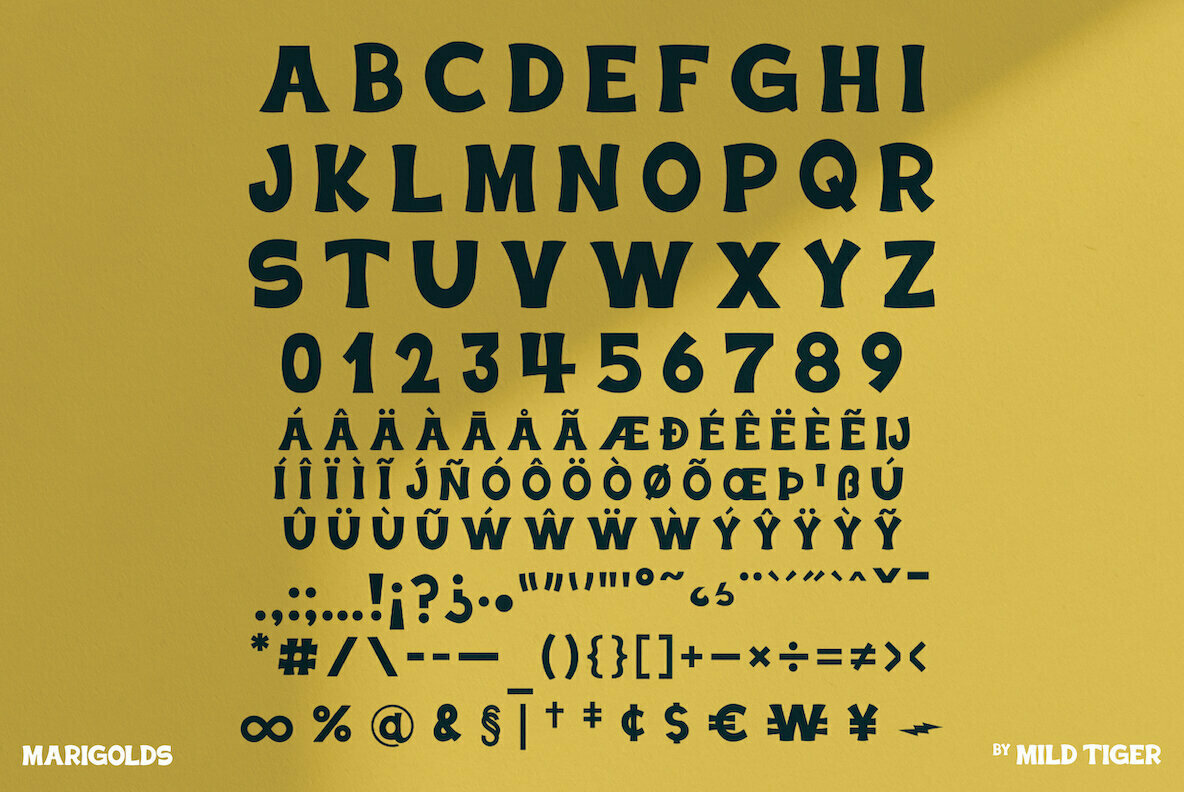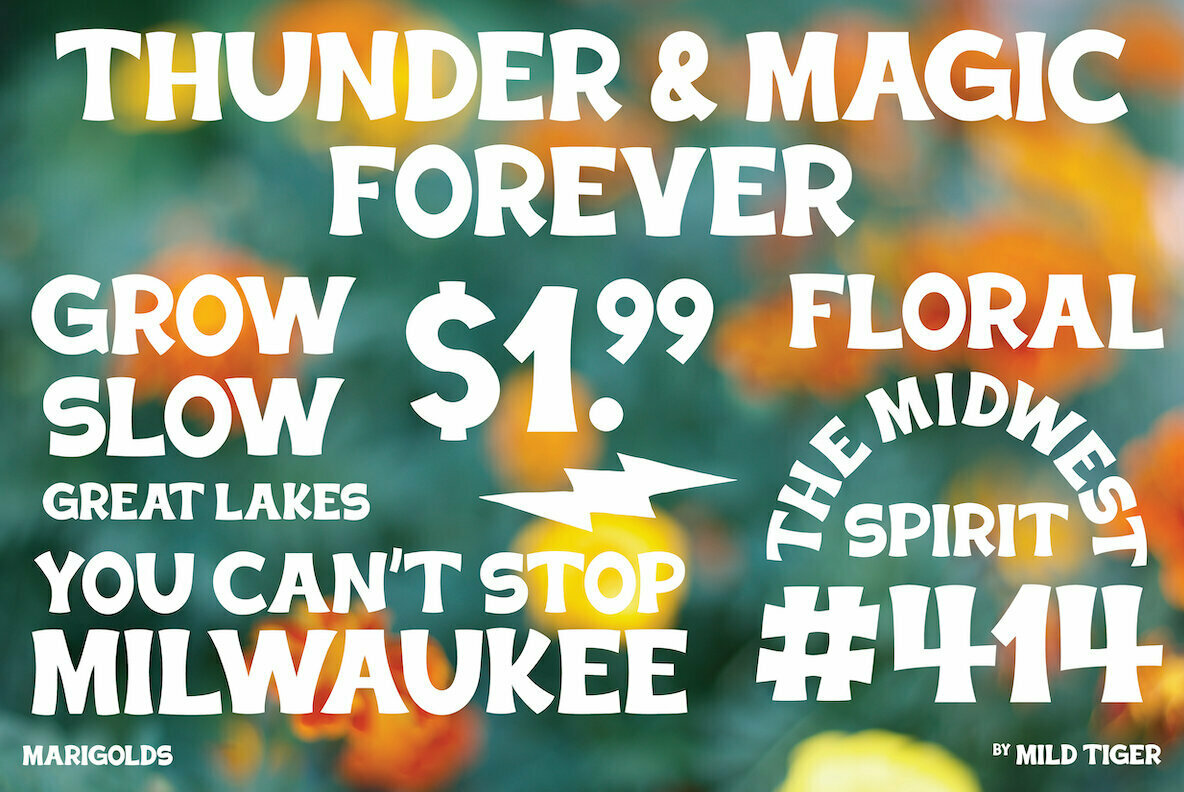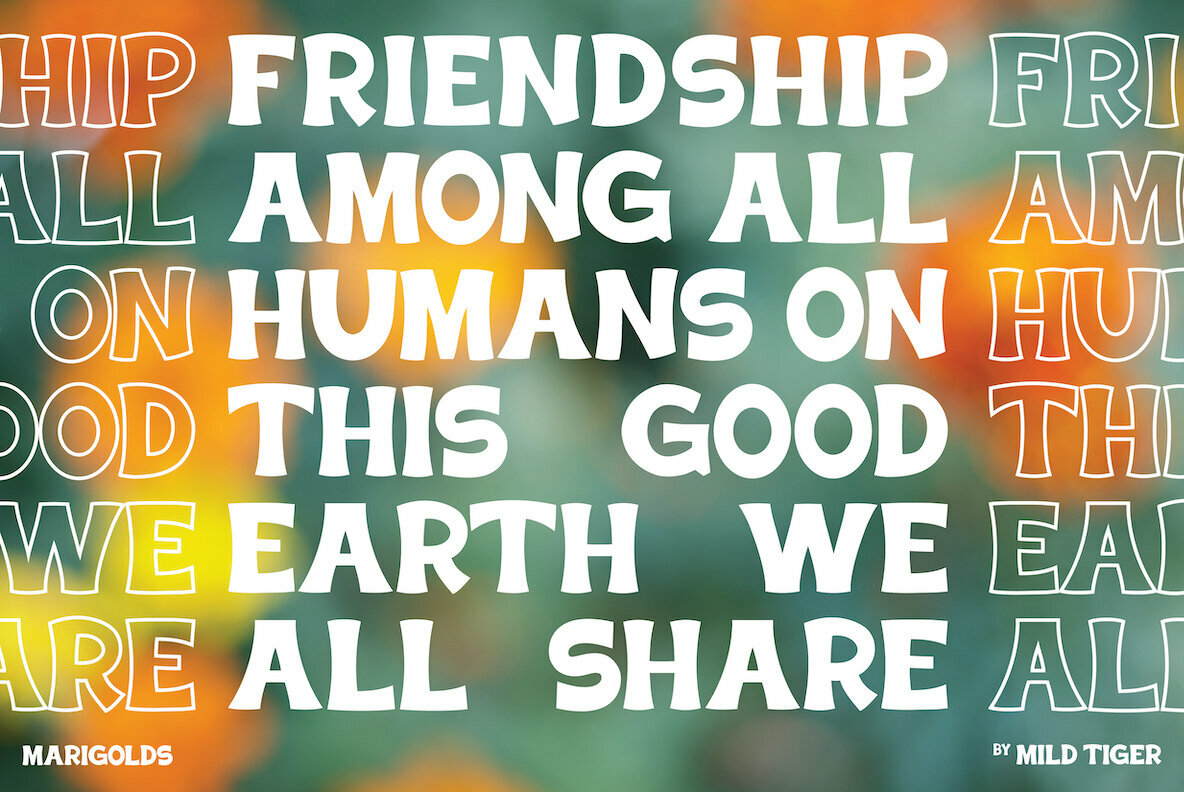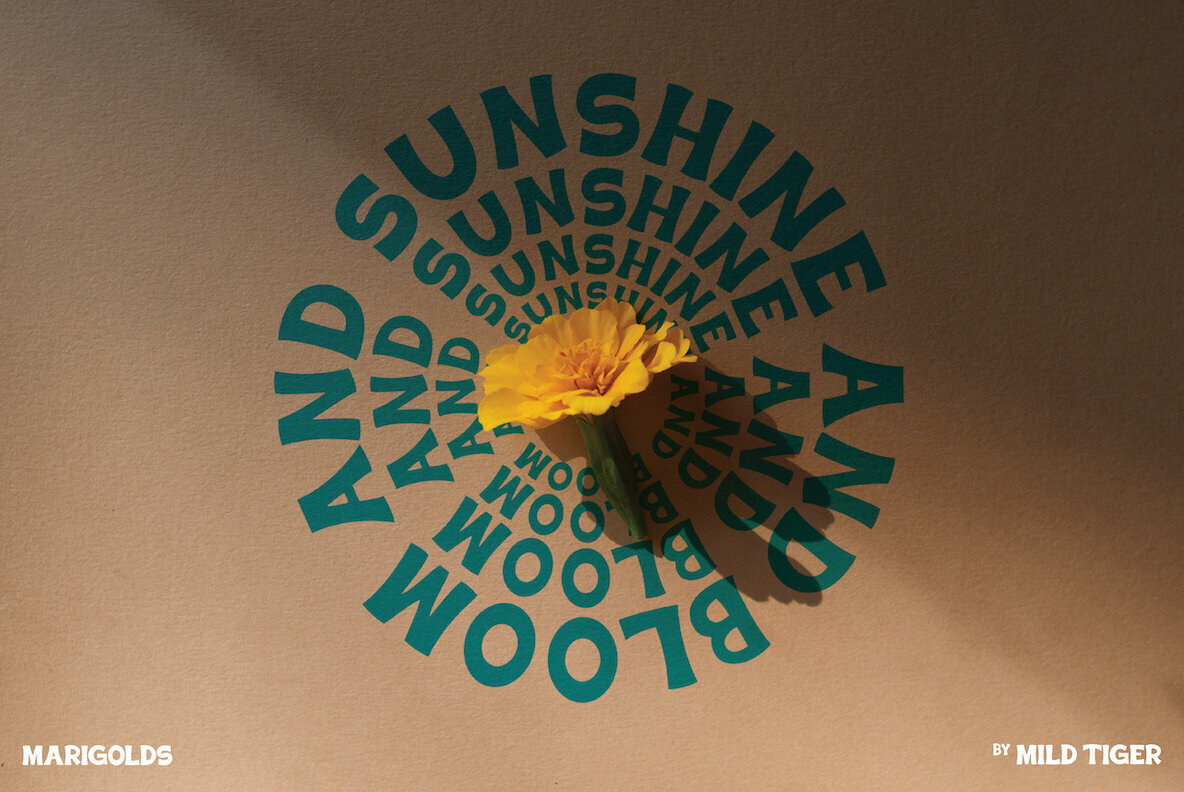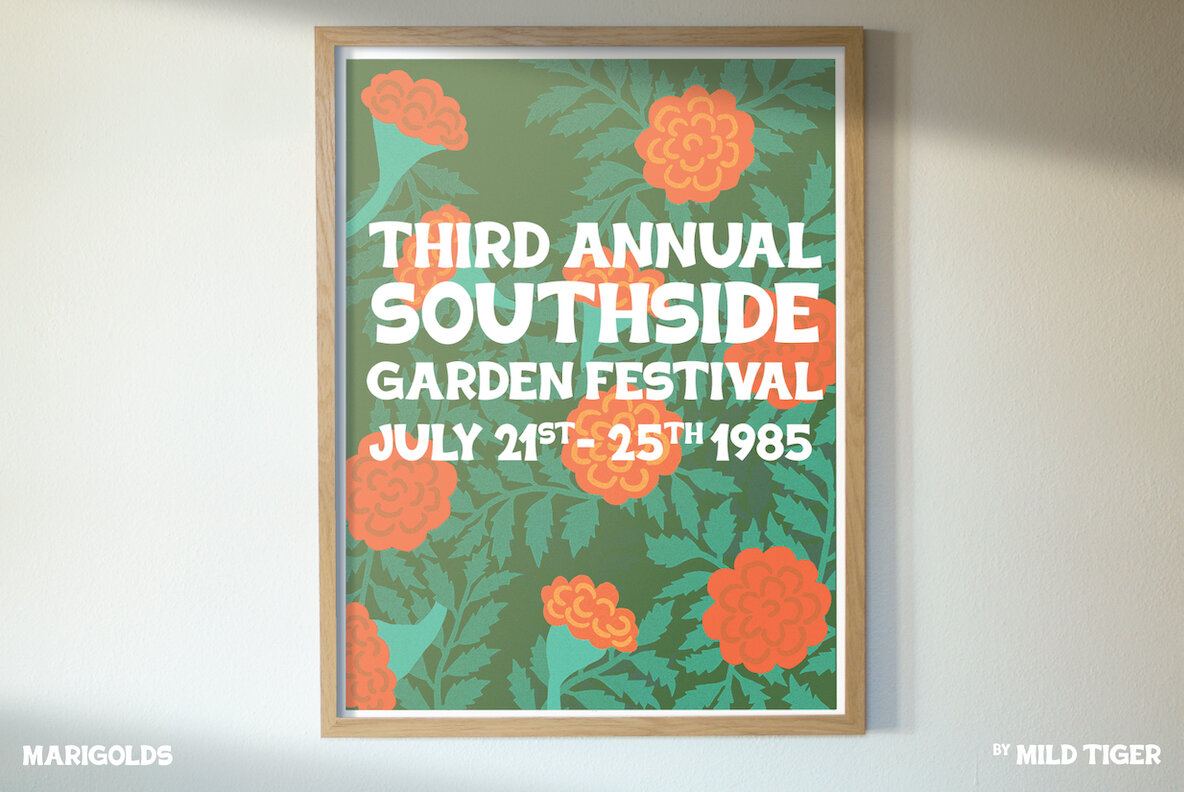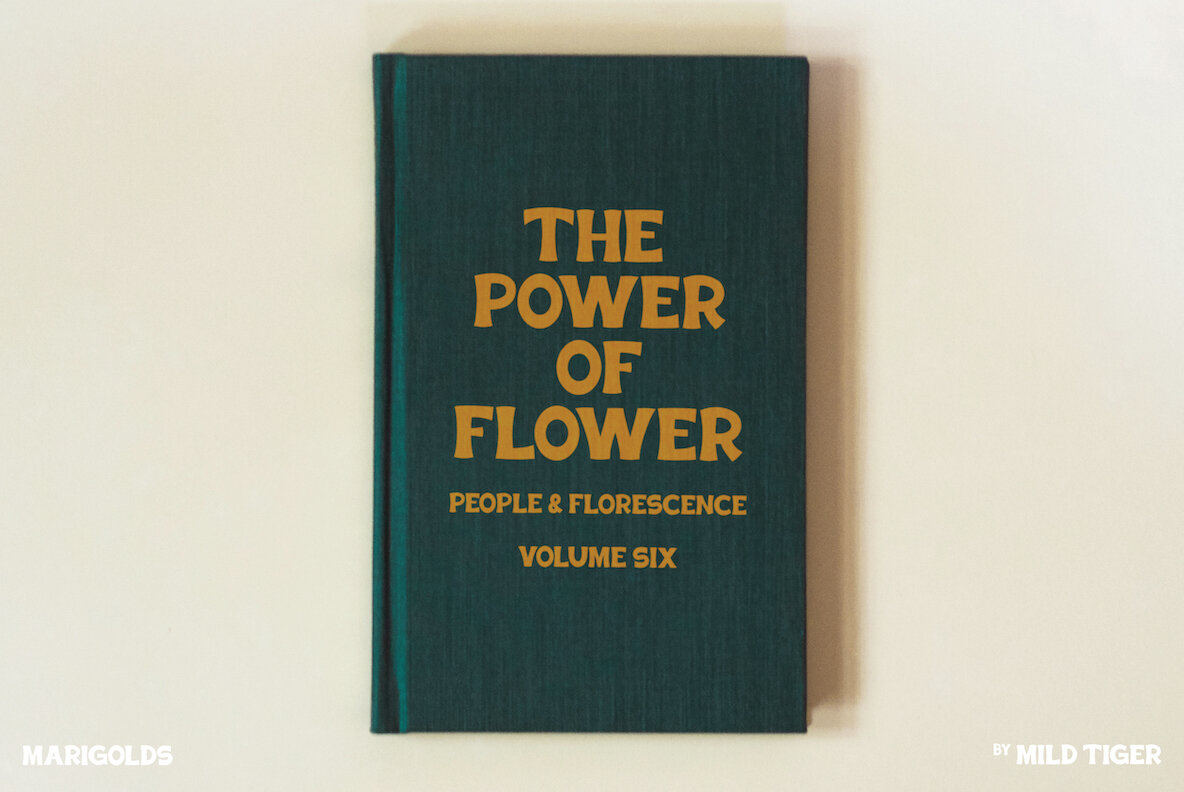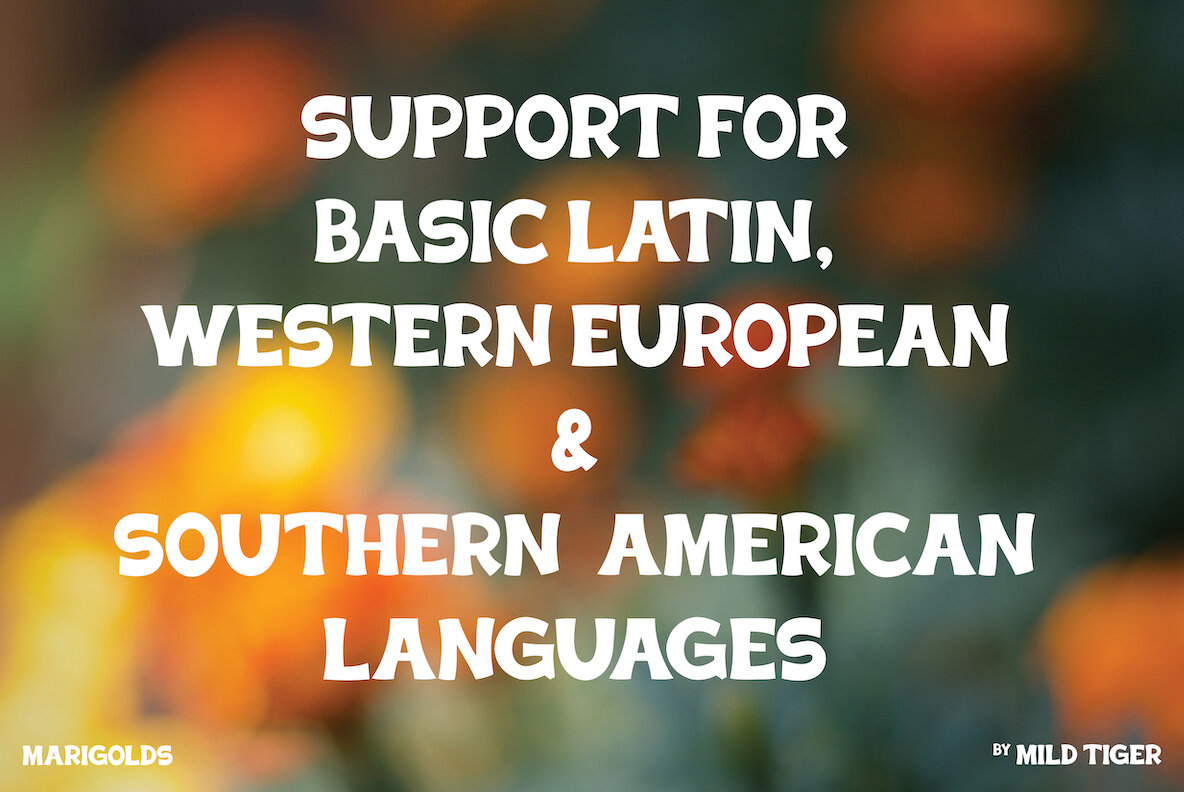
Marigolds Font
Marigolds Regular
Marigolds is a contemporary, bold display font inspired by idiosyncratic, hand-lettered signage and the brief yet seemingly endless space between summer, autumn and forever. Marigolds works best for branding, logo design, packaging design and print.